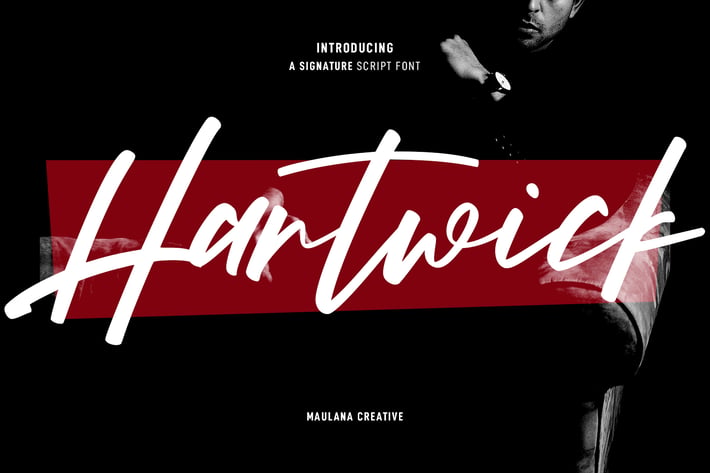
Hartwick Signature Script Font
Hartwick is an expressive signature script font. With high contrast stroke, fun character with a bit of ligatures and alternates. To give you an extra creative work. Hartwick font support multilingual more than 100+ language. This font is good for logo design, Social media, Movie Titles, Books Titles, a short text even a long text letter and good for your secondary text font with sans or serif. Make a stunning work with Hartwick font.